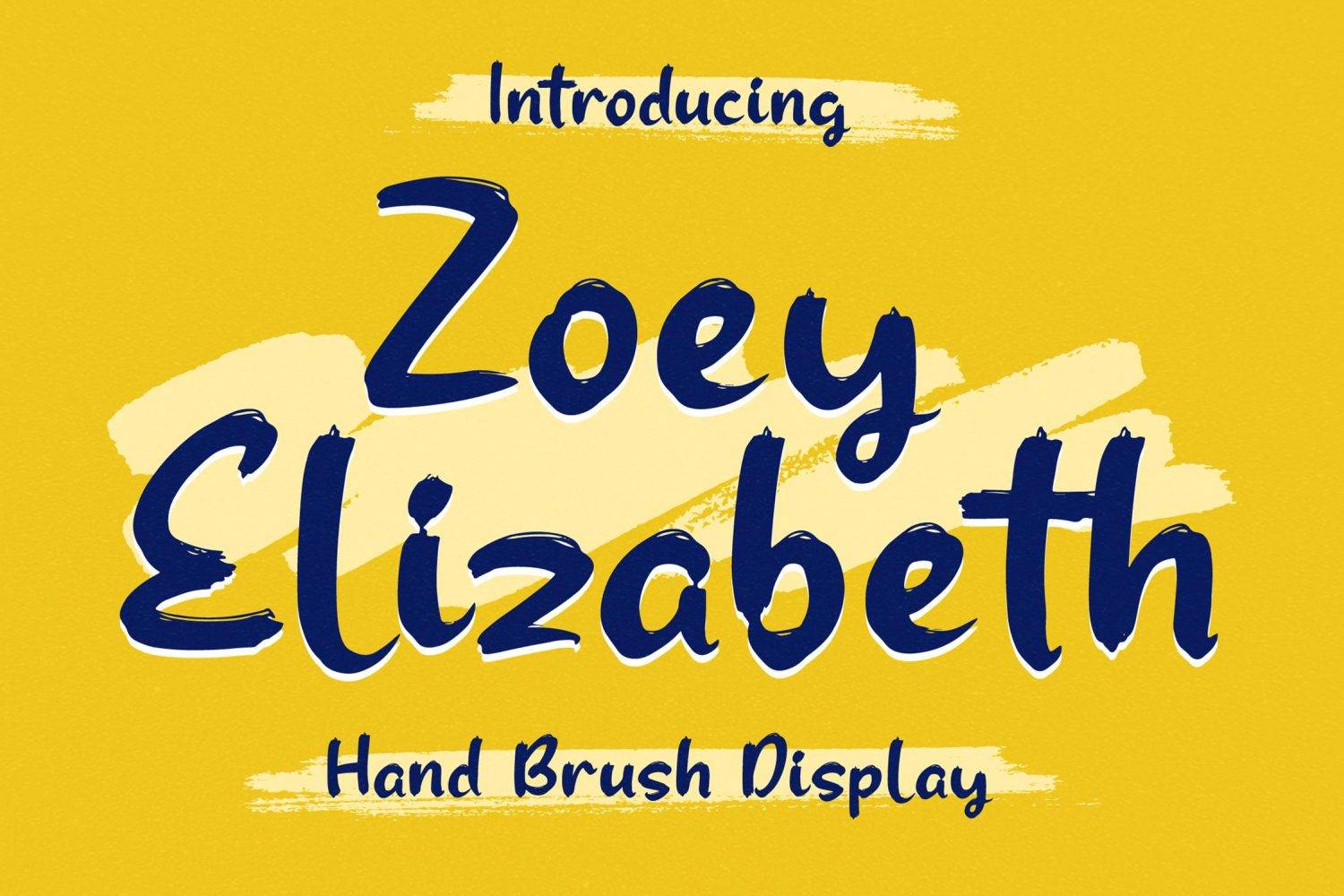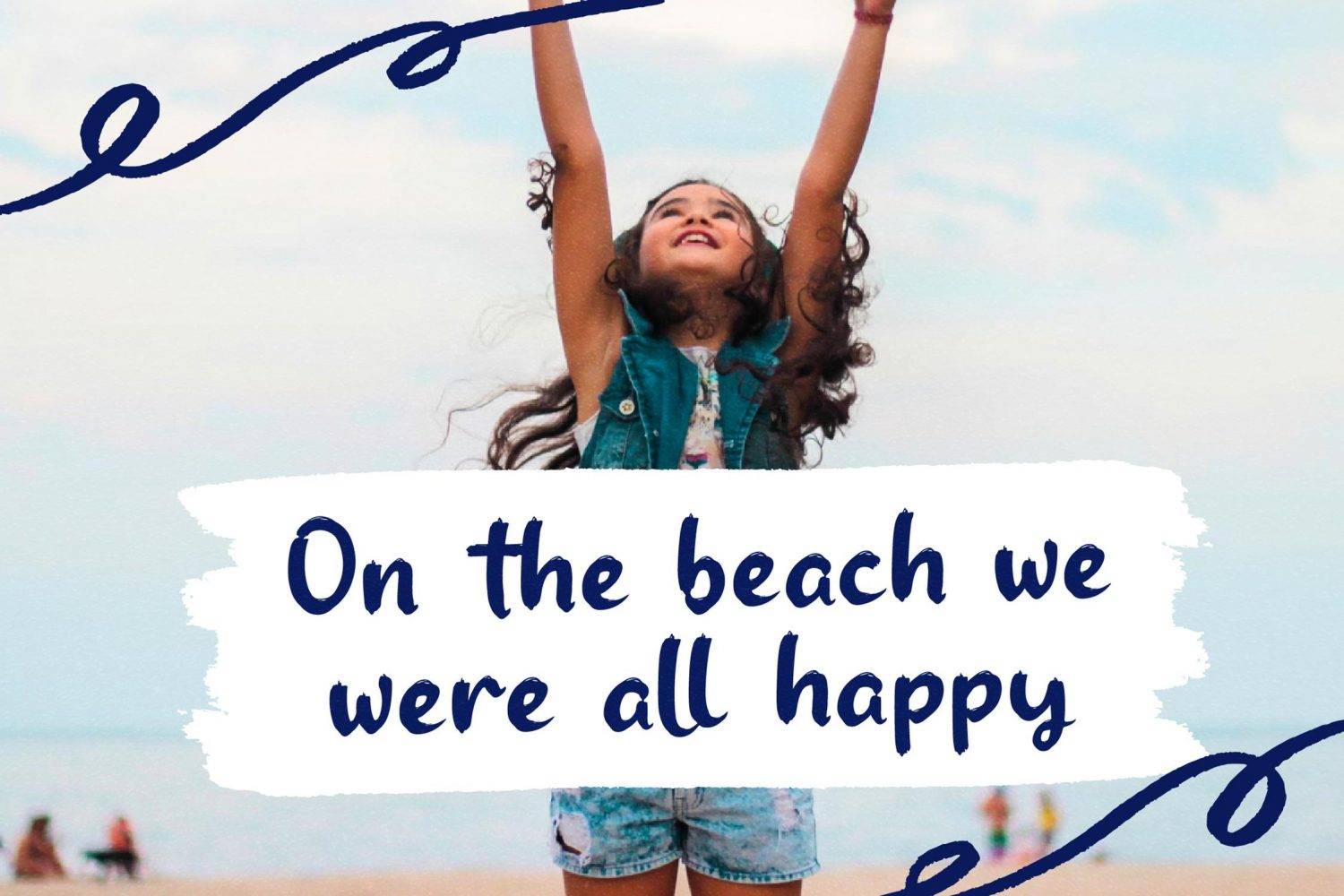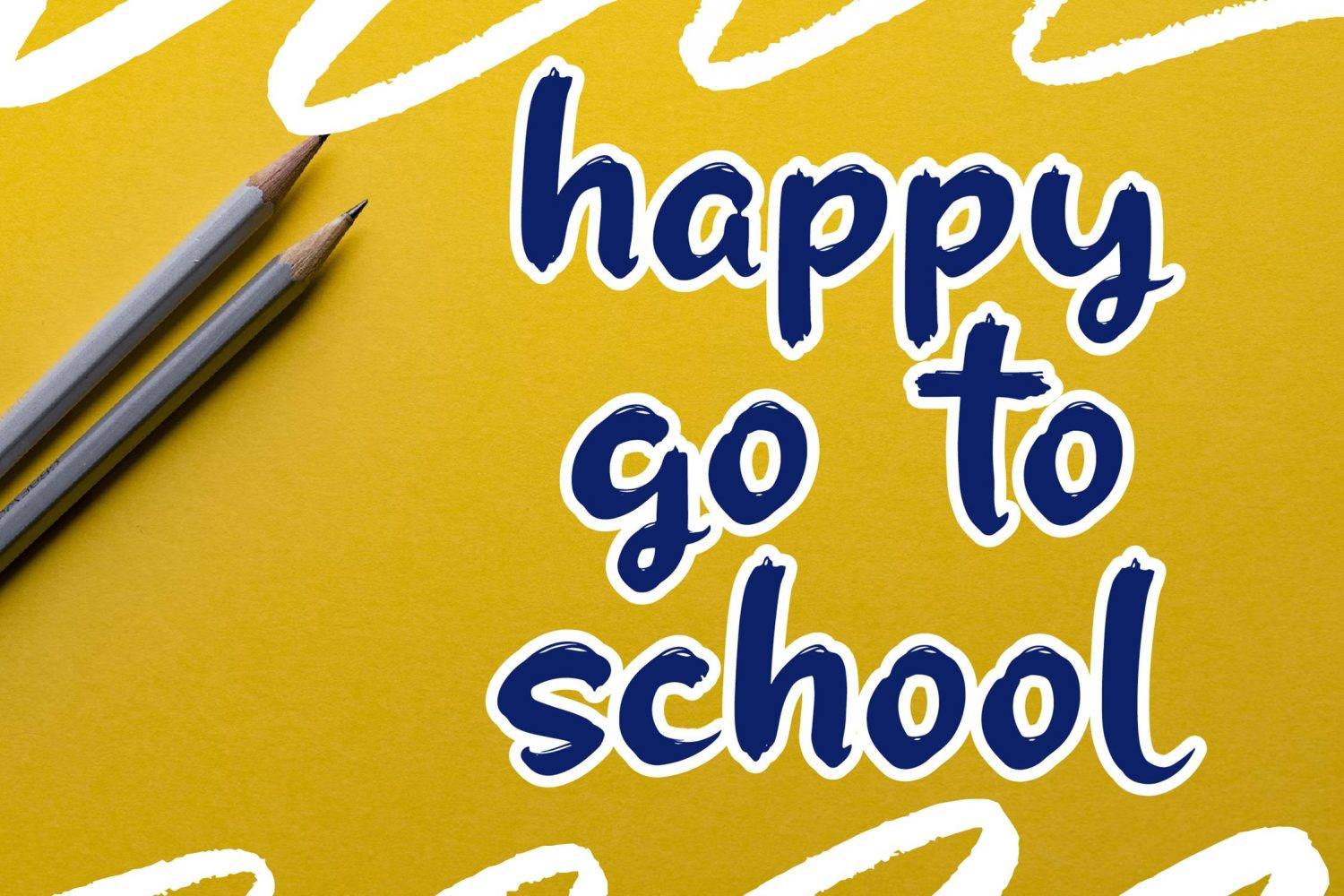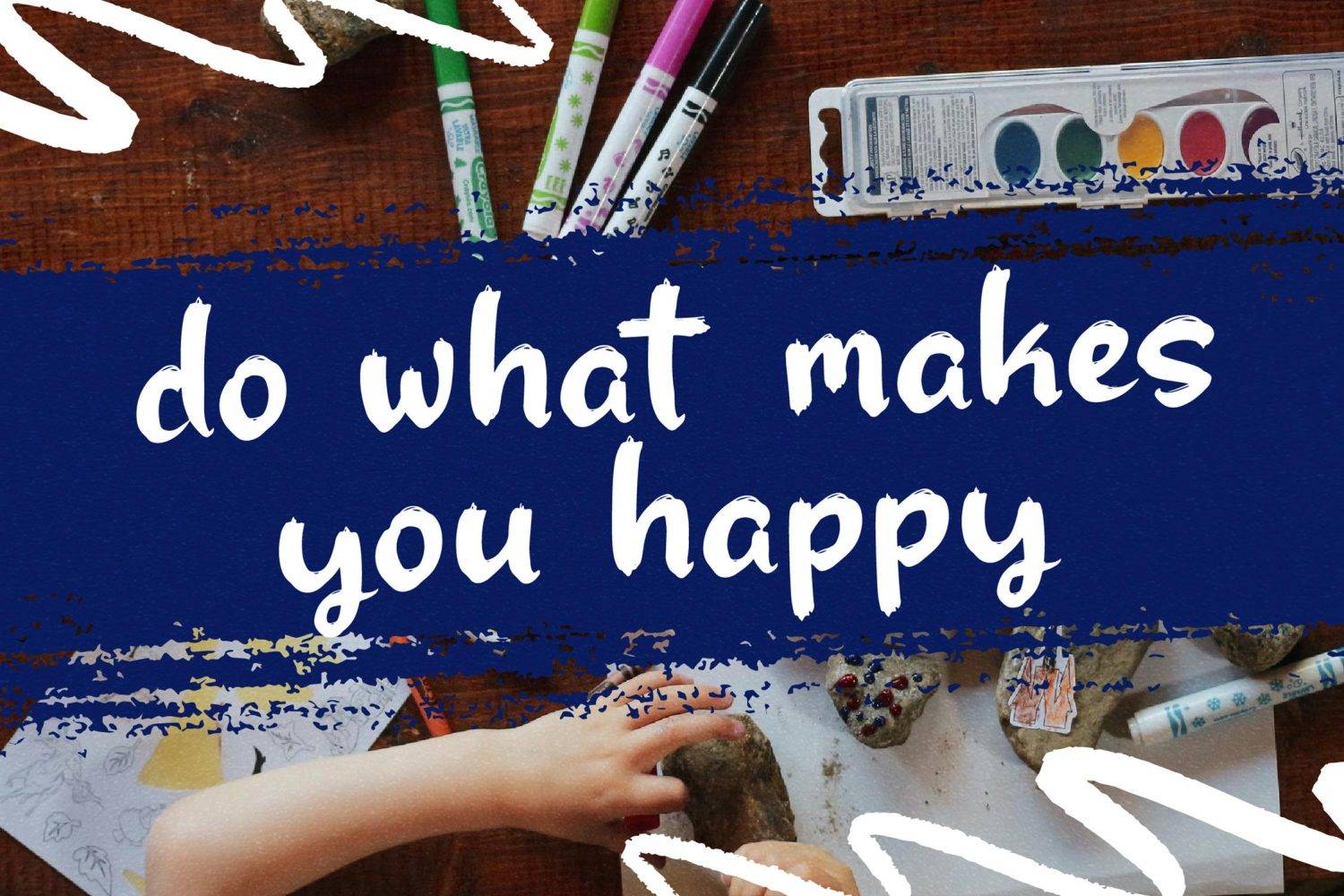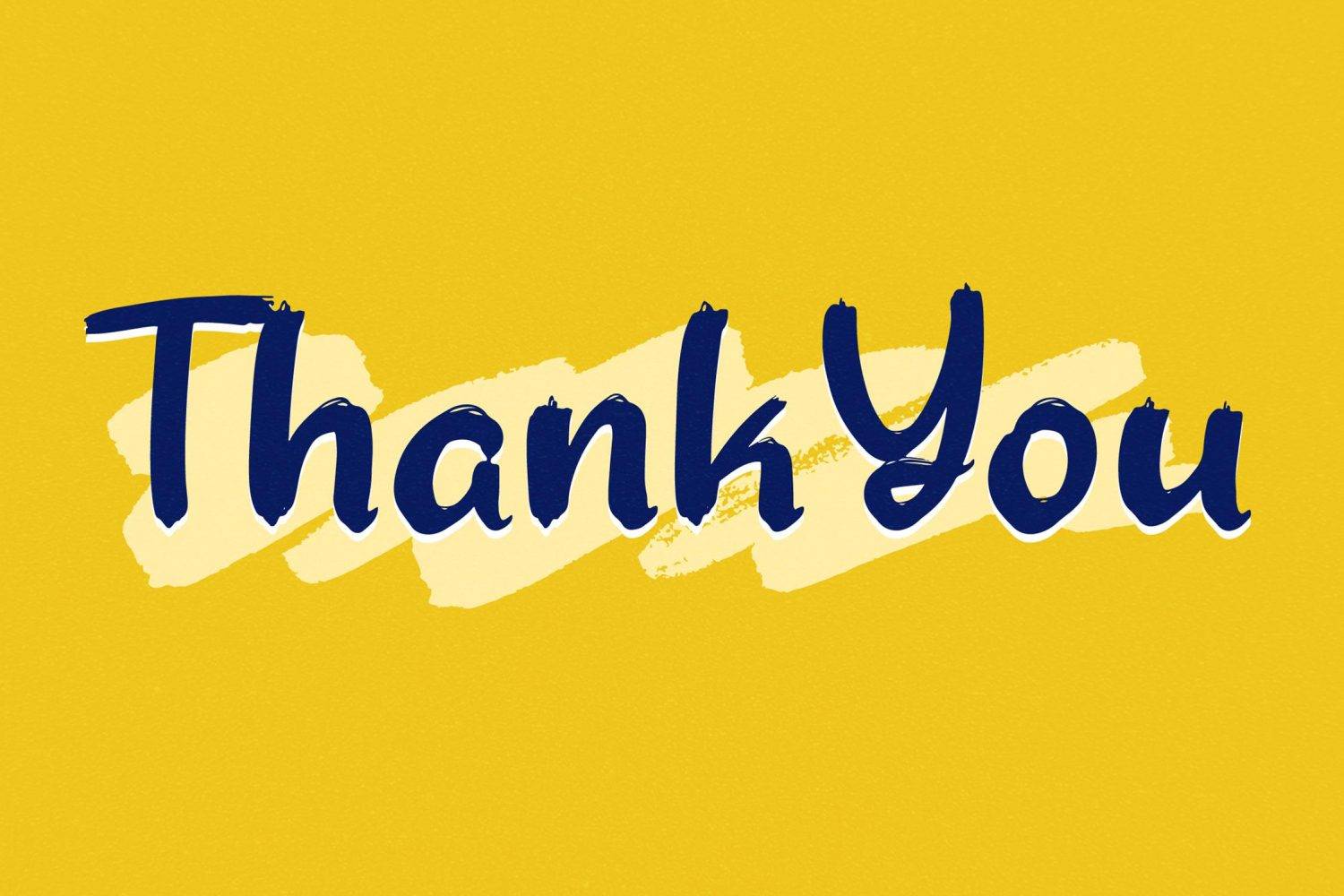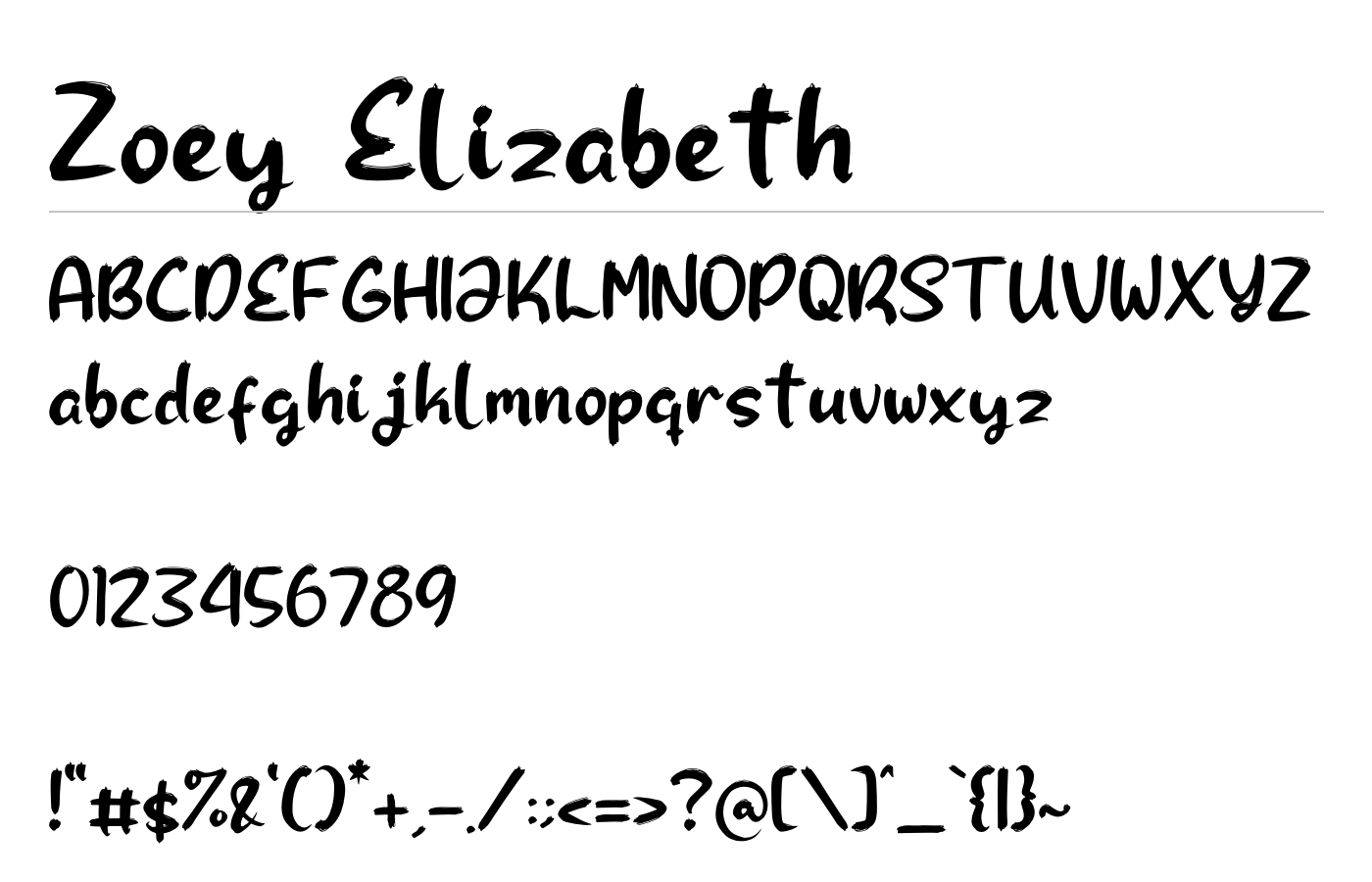
Zoey Elizabeth is a playful, hand-drawn script font that combines casual charm with clear readability. Its irregular strokes and natural brush style create a friendly and approachable feel, making it ideal for creative projects, informal branding, and fun headlines that need a personal touch. This font works well in designs seeking warmth and personality, such as invitations, posters, and artistic web content.
Zoey Elizabeth Font
About Zoey Elizabeth Font
| Font family | Zoey Elizabeth Font |